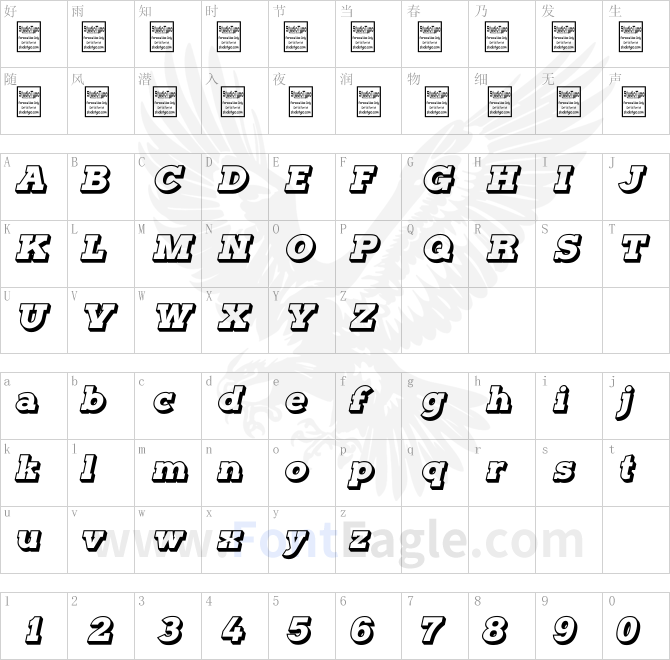
- Font name:Typoster Outline
- Font Subfamily ID:Typoster Outline Italic:Version 1.00
- Font Full Name:Typoster Outline Italic
- Font Version:Version 1.00 August 14, 2014, initial release
- Postscript:TyposterOutline-Italic
- Font Copyright:Typeface © StudioTypo. 2014. All Rights Reserved